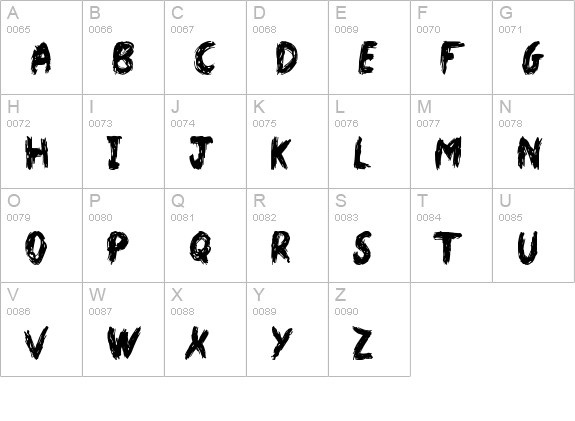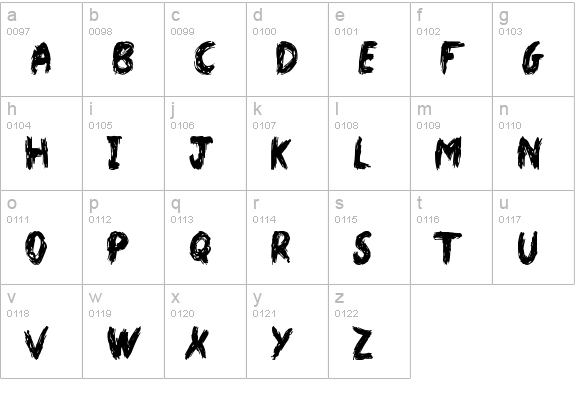
Dark World Font Details
Introducing Dark World font, a captivating and mysterious typeface that will transport you to a realm of darkness and intrigue. This font embodies the essence of a hidden world, where shadows dance and secrets lurk. With its unique and hauntingly beautiful design, Dark World is perfect for adding a touch of mystique to your projects. Dark World font features an array of sharp and angular letterforms, reminiscent of ancient runes etched into stone. Each character is intricately crafted to evoke a sense of power and mystery, making it the ideal choice for logos, titles, book covers, and more. But what sets Dark World font apart is its generous nature - it is freely available to download at FontsMarket.com. So, whether you're a designer looking to create a captivating brand identity or a writer seeking to add a touch of darkness to your words, Dark World font is at your disposal, without any cost. Unleash your creativity and delve into the depths of this enigmatic font. Let Dark World guide you through the shadows and unlock a new dimension of design possibilities. Download Dark World font today, and embark on a journey into the unknown.